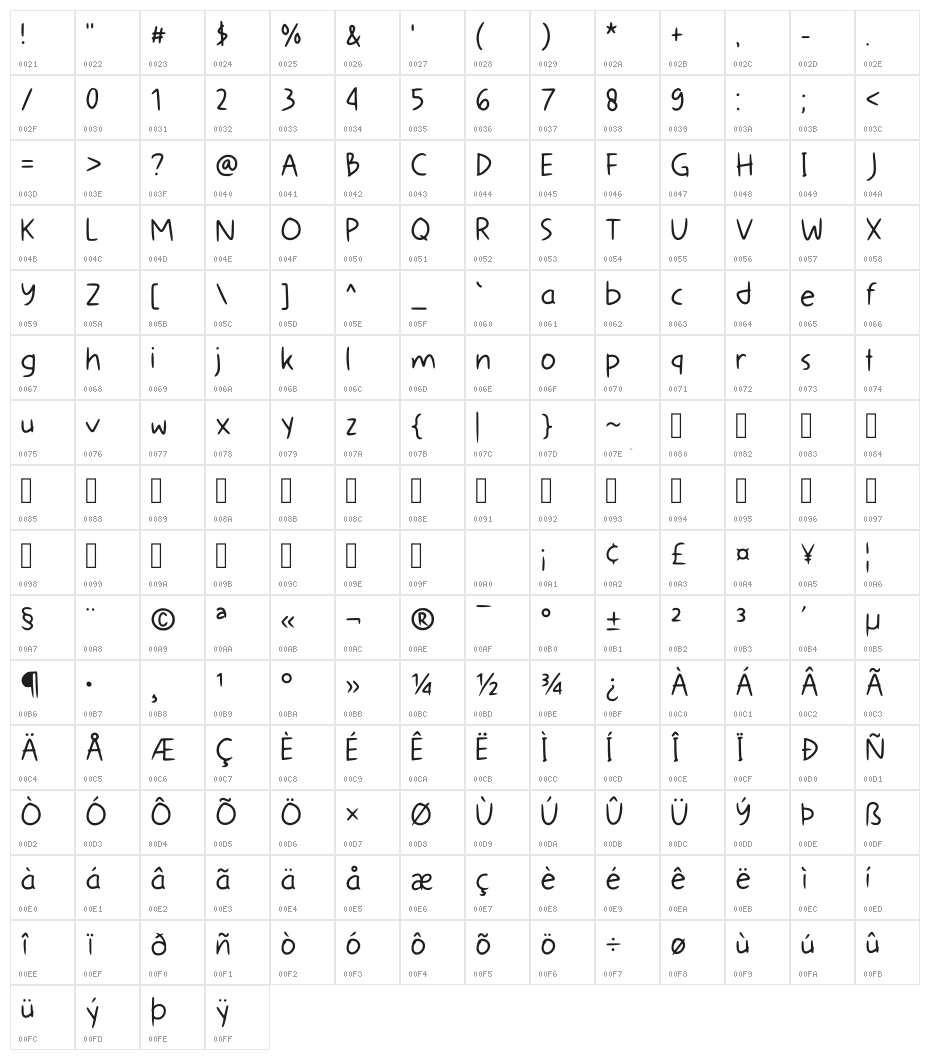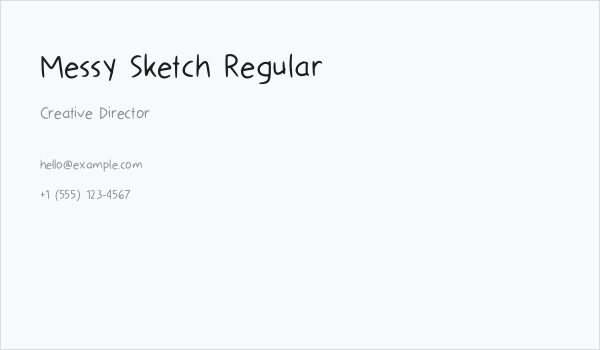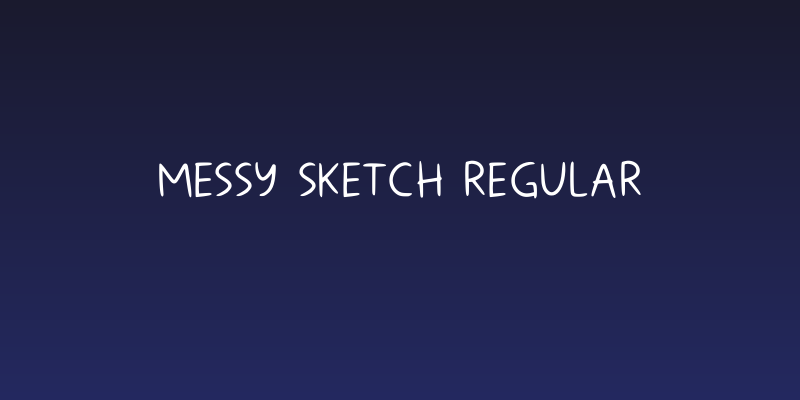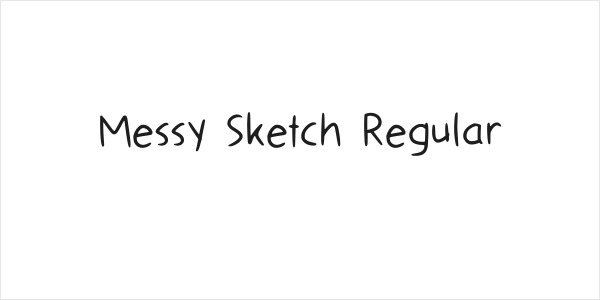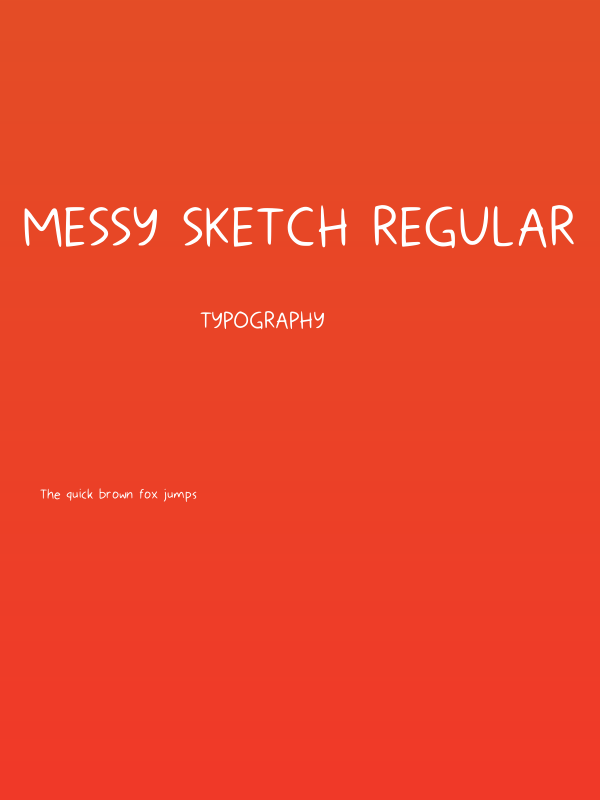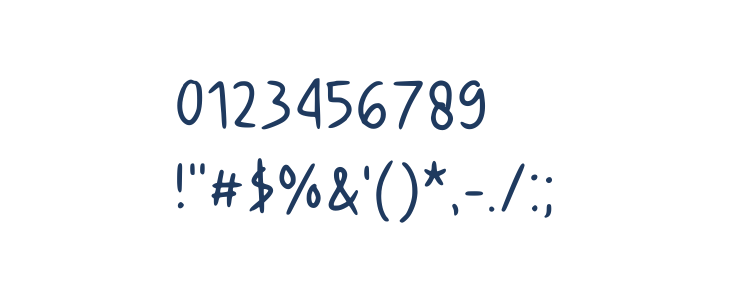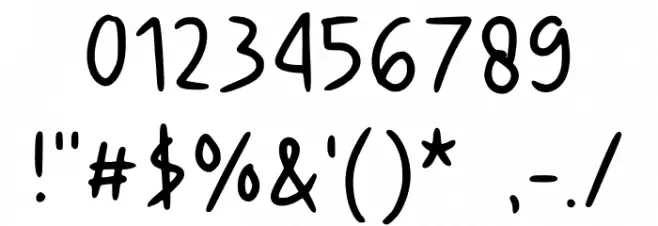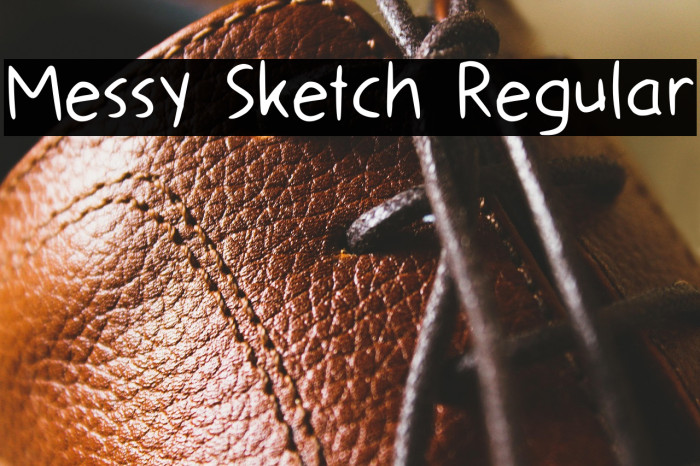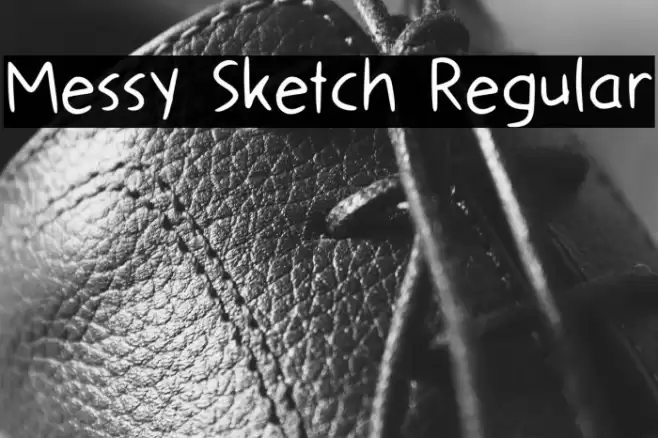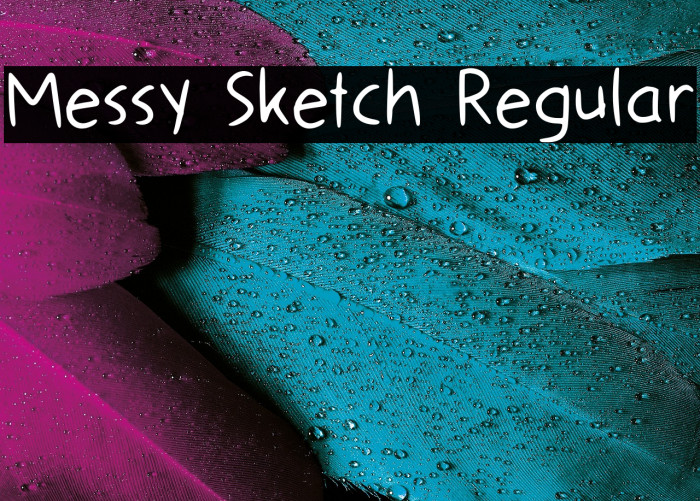
Messy Sketch Regular Font
Messy Sketch Regular Description
This font exudes a playful and informal vibe, characterized by its hand-drawn, sketch-like appearance. The letters are slightly irregular, giving it a casual and approachable feel. The strokes are consistent in width, with a medium contrast that adds to its legibility. The characters are well-spaced, ensuring readability while maintaining a whimsical charm. This style is reminiscent of handwritten notes or doodles, making it perfect for projects that aim to convey a personal touch or creative flair.
| Overall Style | Casual, Playful |
| Use Case | Headlines, Informal text, Creative projects |
| Proposed Projects | Ideal for children's books, creative posters, casual invitations, and personal blogs. |